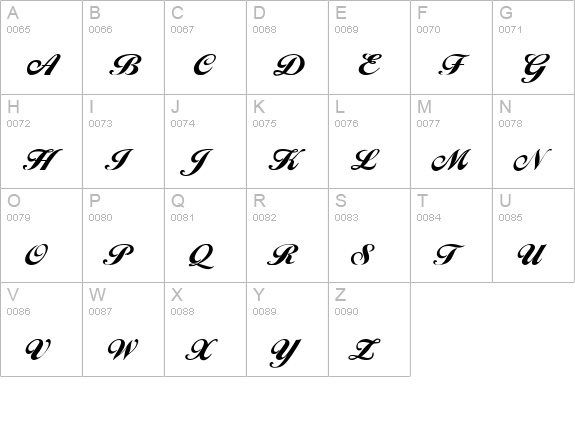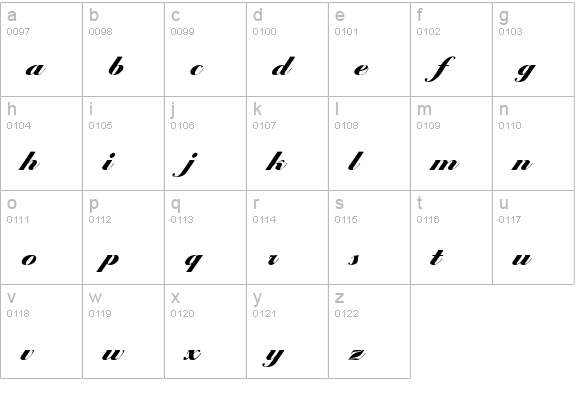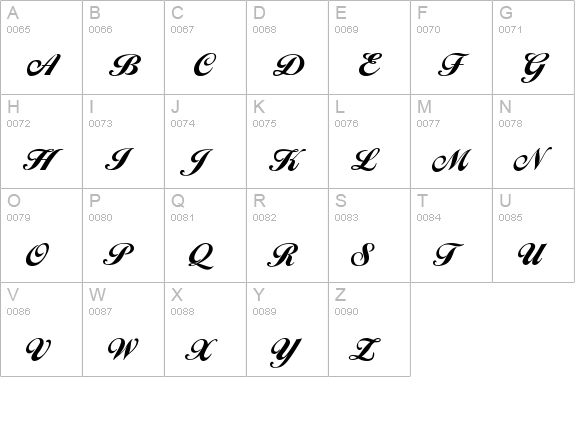
Premi Script SSi Font Details
Premi Script SSi font is a stunning and elegant typeface that exudes sophistication and charm. With its graceful curves and flowing lines, this font is perfect for adding a touch of class to any design project. Whether you're creating wedding invitations, branding materials, or greeting cards, Premi Script SSi font will elevate your work to the next level. The best part? Premi Script SSi font is free to download at FontsMarket.com. This means you can enhance your designs with this beautiful typeface without breaking the bank. Don't miss out on the opportunity to add a touch of elegance to your projects with the exquisite Premi Script SSi font. Download it today and take your designs to new heights!